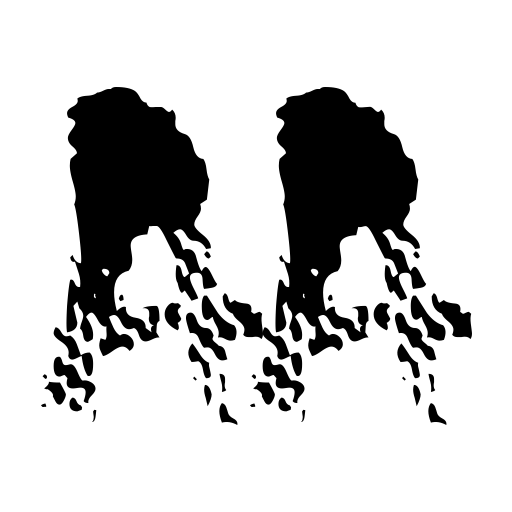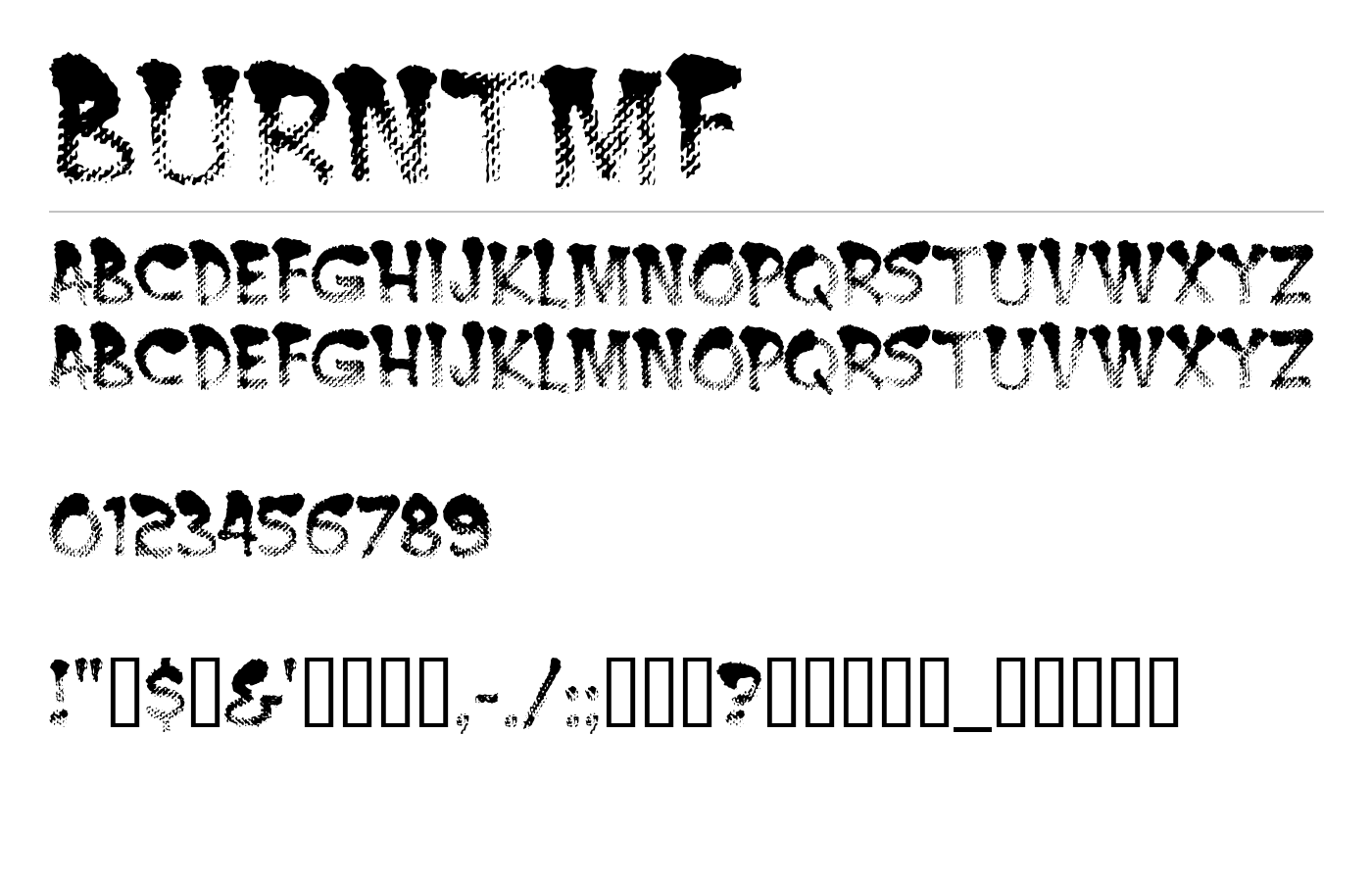
BurntMF is a bold, playful display font that mimics a textured, charred effect, making it perfect for edgy, creative designs. Its irregular, distressed letterforms give a dynamic, hand-crafted feel, ideal for posters, branding, or projects needing a strong, expressive personality. This font grabs attention with its unique style, making it great for headlines and logos that want to stand out with a fiery, artistic vibe.
BurntMF Font
About BurntMF Font